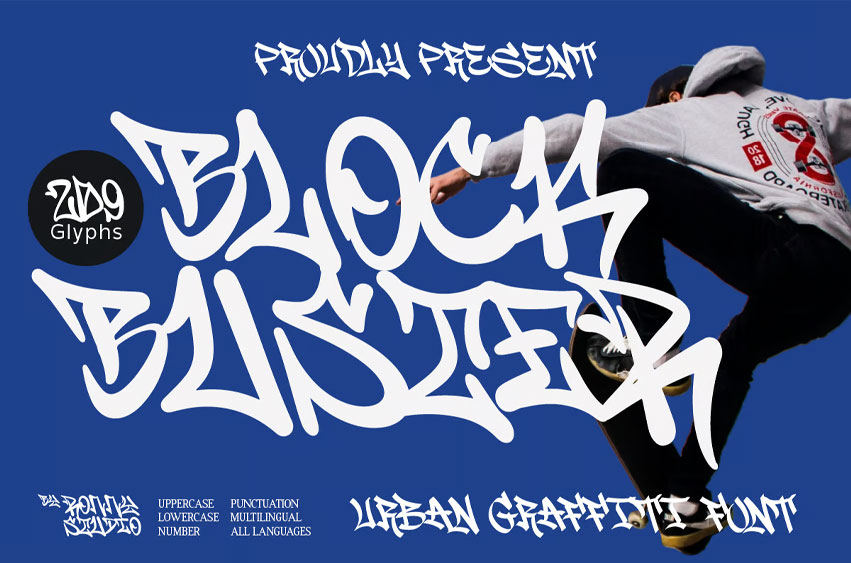
Block Buster Font
Block Buster Font is a bold and expressive graffiti font that brings the raw energy of street art and urban culture into your designs. Inspired by authentic hand-drawn graffiti, this font is perfect for branding, posters, streetwear, album covers, and more!
Perfect for: Urban Branding & Logos Music & Skateboard Posters Streetwear & Merchandise Album Covers & Event Flyers Social Media Graphics That Stand Out